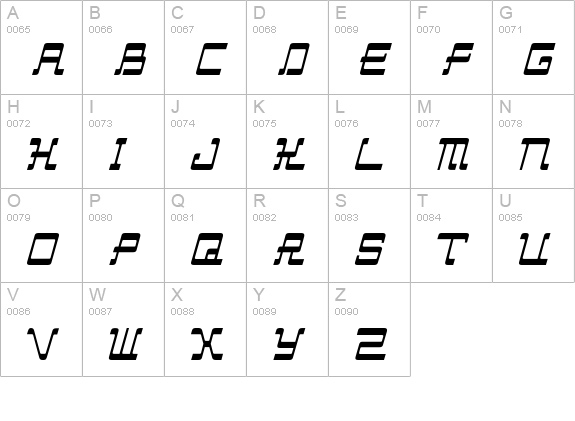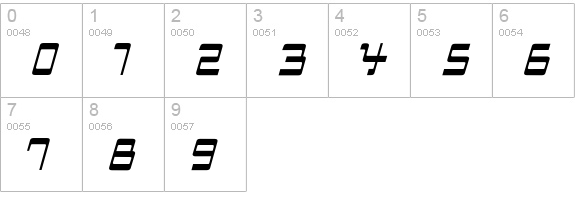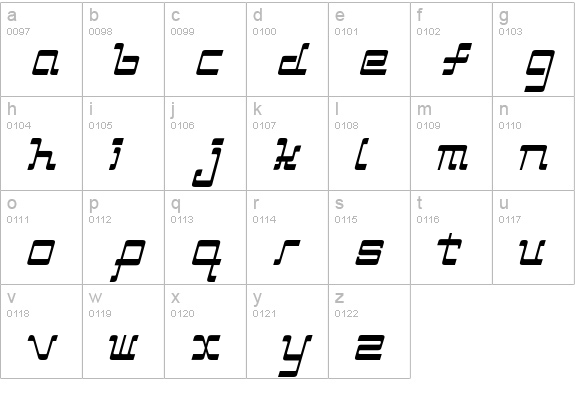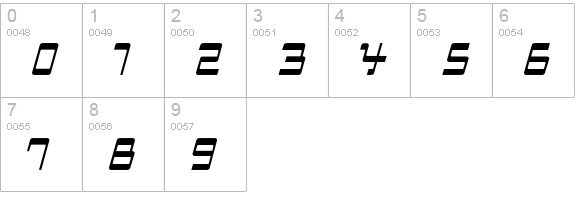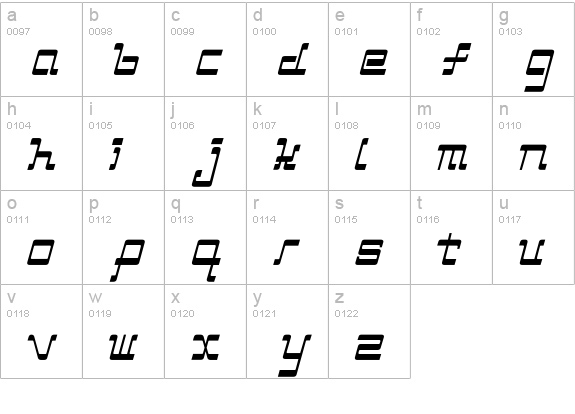
Maniac-AL-Regular Font Details
Maniac-AL-Regular is the standard, neutral variant in the Maniac typeface family \xE2\x80\x94 well suited to general body text, paragraphs, and standard typographic work.
Maniac-AL-Regular is a modern and stylish font that exudes a sense of energy and excitement. Its bold and dynamic letterforms are perfect for making a statement in any design project. This font features clean lines and a unique geometric structure that adds a touch of sophistication to any text. With its versatile nature, Maniac-AL-Regular can be used for anything from logos and branding to headlines and posters. One of the best things about Maniac-AL-Regular is that it is free to download. You can easily access this font at FontsMarket.com, a trusted source for high-quality fonts. Whether you're a professional designer or someone looking to add a touch of creativity to a personal project, this font is readily available for you to use, without any cost. The attention to detail in Maniac-AL-Regular is evident in every character, from the precise curves to the well-balanced proportions. This font is designed to catch the eye and leave a lasting impression. Its bold and confident aesthetic suits a wide range of creative applications, from advertising and packaging to web design and social media graphics. Maniac-AL-Regular is not just visually appealing; it also offers excellent legibility, making it suitable for both small and large text sizes. The clean and crisp lines ensure that every letter is easily distinguishable, even at smaller sizes. This font is a fantastic choice for projects that require readability without sacrificing style. So, if you're looking for a font that is both visually striking and easy to use, look no further than Maniac-AL-Regular. With its modern and energetic design, it is sure to make a lasting impression. And the best part? It's freely available to download at FontsMarket.com, giving you the opportunity to enhance your designs without breaking the bank.